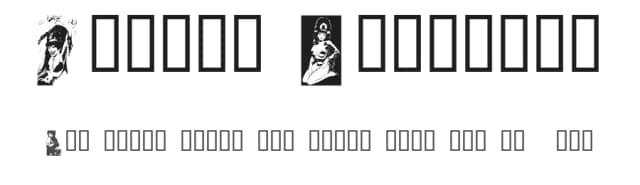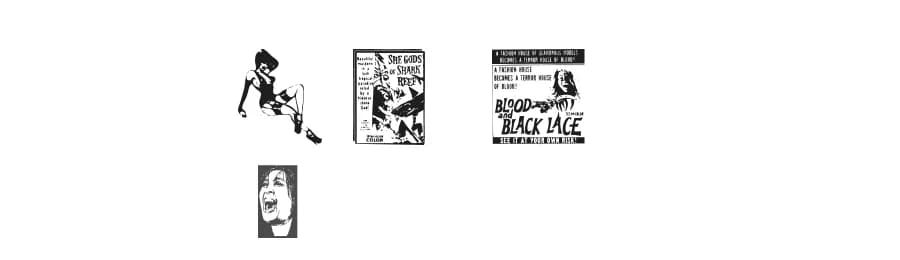
About B Movie Dings Font
B Movie Dings is a dingbat font designed by The Empire of the Claw. It includes 109 glyphs, a regular weight, TTF (TrueType) format, and 104 languages. B Movie Dings is free to download; check the license details on this page before commercial use. Dingbat fonts like B Movie Dings work best for icons, ornaments, bullet points, and decorative accents.
B Movie Dings Font is a versatile dingbats font that works for both headings and body text. Pair it with a contrasting sans-serif or serif font to add visual interest and a clear distinction between titles and body copy.
B Movie Dings Font
B Movie Dings Font is a dingbats typeface by The Empire of the Claw, ideal for logos, invitations, branding, and creative projects.